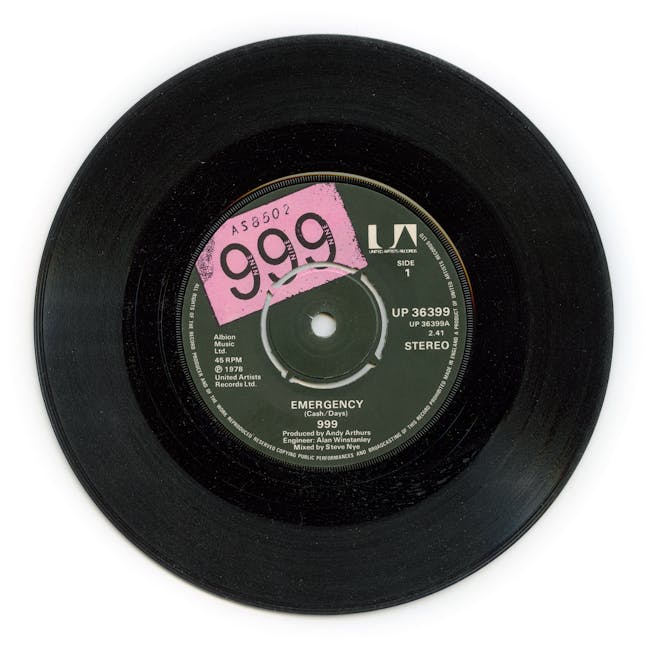
What is Retro Typeface?
Retro typeface is more than just a nod to the past; it’s a bridge connecting the timeless aesthetic of bygone eras with the modern design world. These typefaces evoke nostalgia, charm, and a sense of familiarity, making them an invaluable tool for designers and brands looking to stand out. But what makes these fonts so special? Let’s dive into the world of retro typefaces and explore their history, characteristics, and applications in branding.
History of Retro Typeface
The Beginnings of Typography
Typography as an art form has been evolving for centuries. Long before retro typefaces became popular, the foundations of typography were laid by early designers like Nicolas Jenson. His Roman-style typeface in 1470 was among the first to adhere to typographic principles. This era set the stage for the rich typographic diversity we see today, culminating in the unique styles that define retro fonts.
Influence of the 1950s and 1960s
The 1950s and 1960s were a transformative time for design and typography. During these decades, bold colors, playful curves, and distinctive serifs became popular, heavily influencing the aesthetics of retro typefaces. The post-war optimism and cultural boom inspired designers to create fonts that reflected the spirit and energy of the times. From the flowing scripts seen in advertisements to the geometric sans-serifs, these styles continue to inspire modern designers.
Revival in the 21st Century
Retro typefaces have seen a resurgence in popularity in the 21st century. As we seek to connect with the past, these fonts provide a sense of nostalgia and authenticity that is appealing in an age dominated by digital technology. The revival is not just about reminiscing; it’s about blending vintage aesthetics with contemporary design, creating unique and memorable brand identities.
Characteristics of Retro Typeface
Design Elements
Retro typefaces are distinguished by their ornate details, such as curves, serifs, and color schemes. These elements create a visual style that is both intricate and bold. Often, retro fonts incorporate swashes or decorative elements, adding to their charm. This blend of features allows for a wide range of expressions, from playful and whimsical to sophisticated and elegant.
Emotional Impact
Beyond aesthetics, retro typefaces evoke powerful emotions. They tap into a collective nostalgia, reminding us of simpler times and cherished memories. This emotional connection is why brands often choose retro fonts to create a sense of warmth and familiarity in their messaging.
Applications of Retro Typeface in Branding
Case Studies of Successful Brands
Many brands have successfully integrated retro typefaces into their branding, creating logos and identities that resonate with audiences. Companies like Coca-Cola and Levi’s have long utilized vintage-inspired fonts to maintain their timeless appeal. These brands demonstrate how effectively retro typography can create a lasting impression.
Tips for Incorporating Retro Typefaces
For designers looking to incorporate retro typefaces into modern branding, it’s essential to balance nostalgia with contemporary design elements. Consider the overall brand message and audience when selecting a typeface. Use retro fonts sparingly to avoid overwhelming the design, and pair them with modern elements to create a fresh look.
Choosing the Right Retro Typeface
Understand Your Audience
Choosing the right retro typeface begins with understanding your audience. What emotions or memories are you trying to evoke? Conducting thorough audience research can guide your decisions, ensuring that the typeface aligns with their preferences and enhances the brand’s message.
Balancing Nostalgia with Modernity
While the allure of retro typefaces is their nostalgic vibe, it’s crucial to ensure they don’t make your design feel outdated. Aim for a balance by combining retro elements with modern aesthetics. This approach can help maintain a fresh, contemporary feel while still capitalizing on the emotional draw of nostalgia.
Retro typefaces continue to play a significant role in branding, offering a unique blend of nostalgia and style that resonates with audiences. Whether you’re designing a logo or crafting a brand identity, these fonts offer timeless appeal and emotional impact. By understanding their history, characteristics, and applications, you can harness the power of retro typefaces to create designs that are both memorable and meaningful.